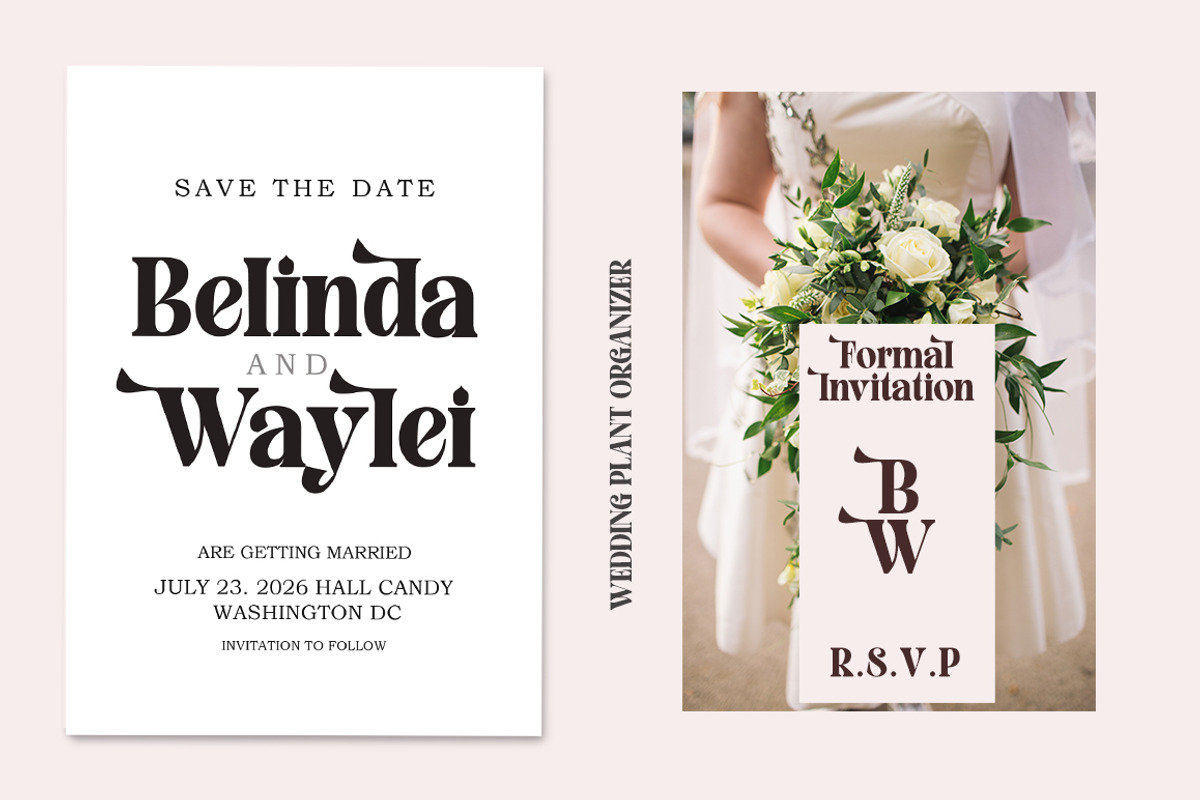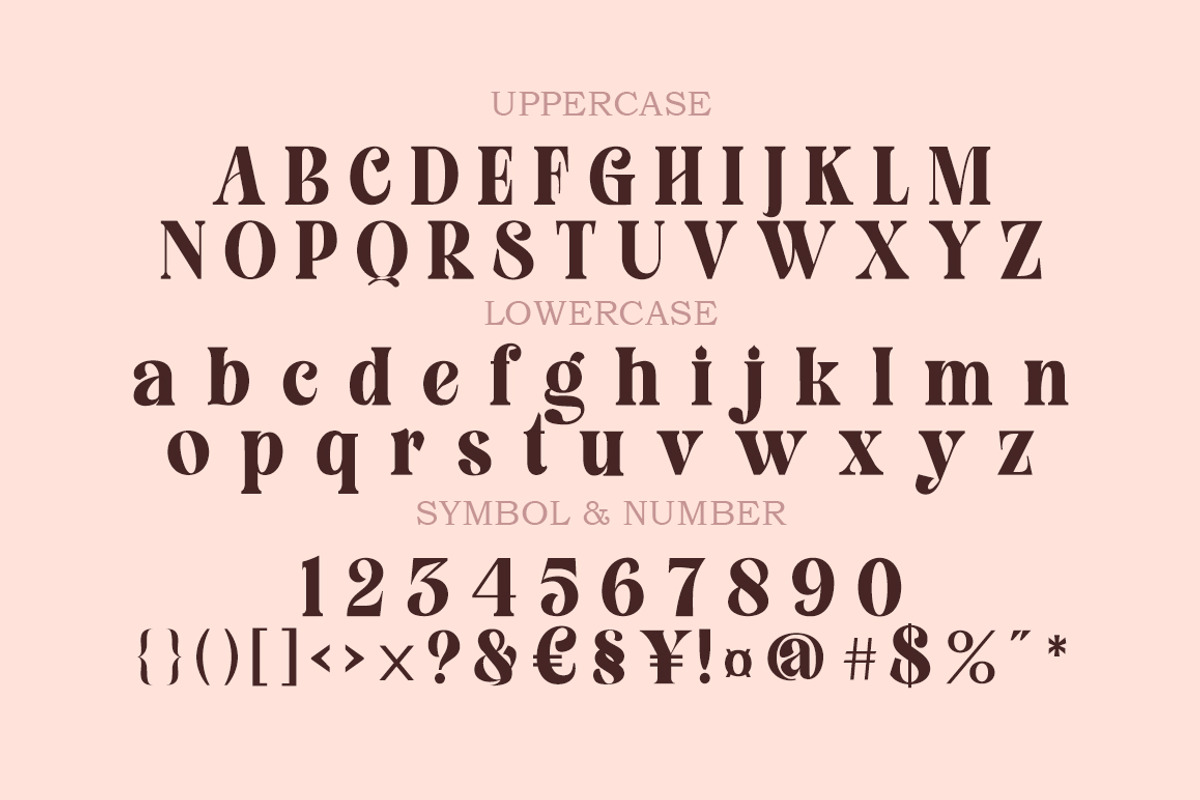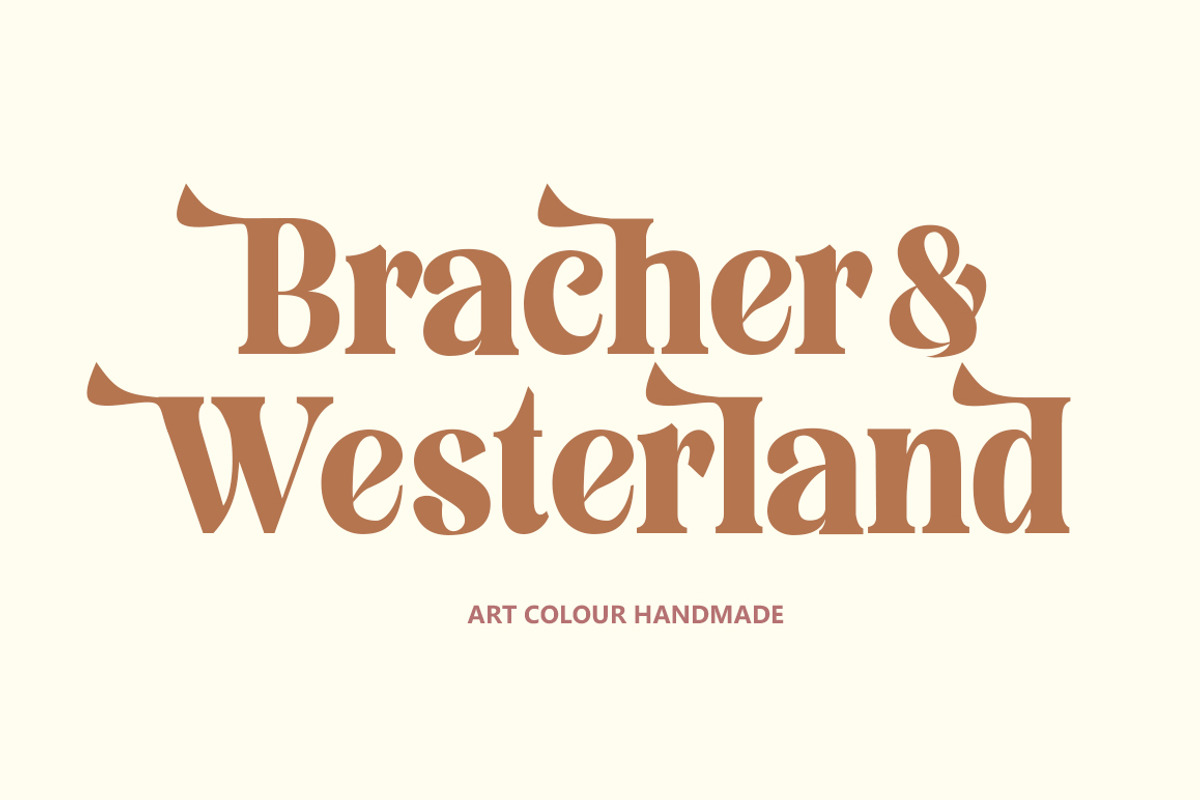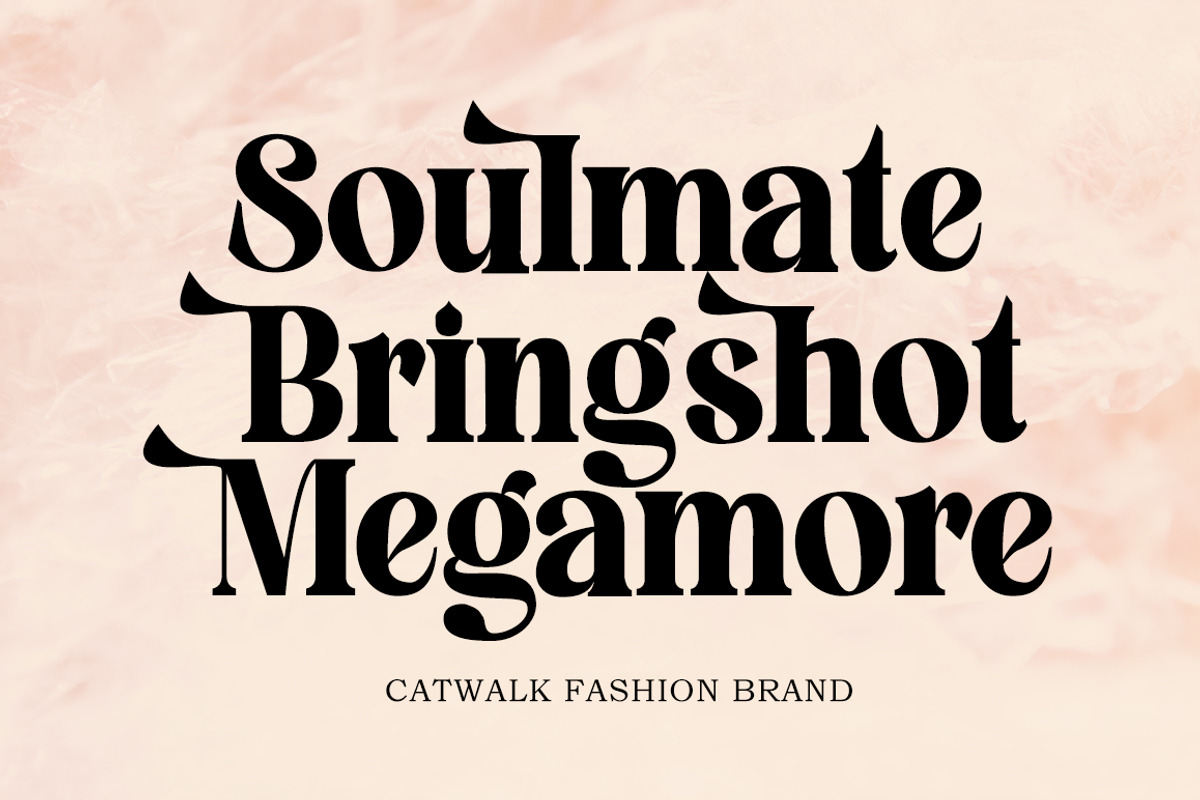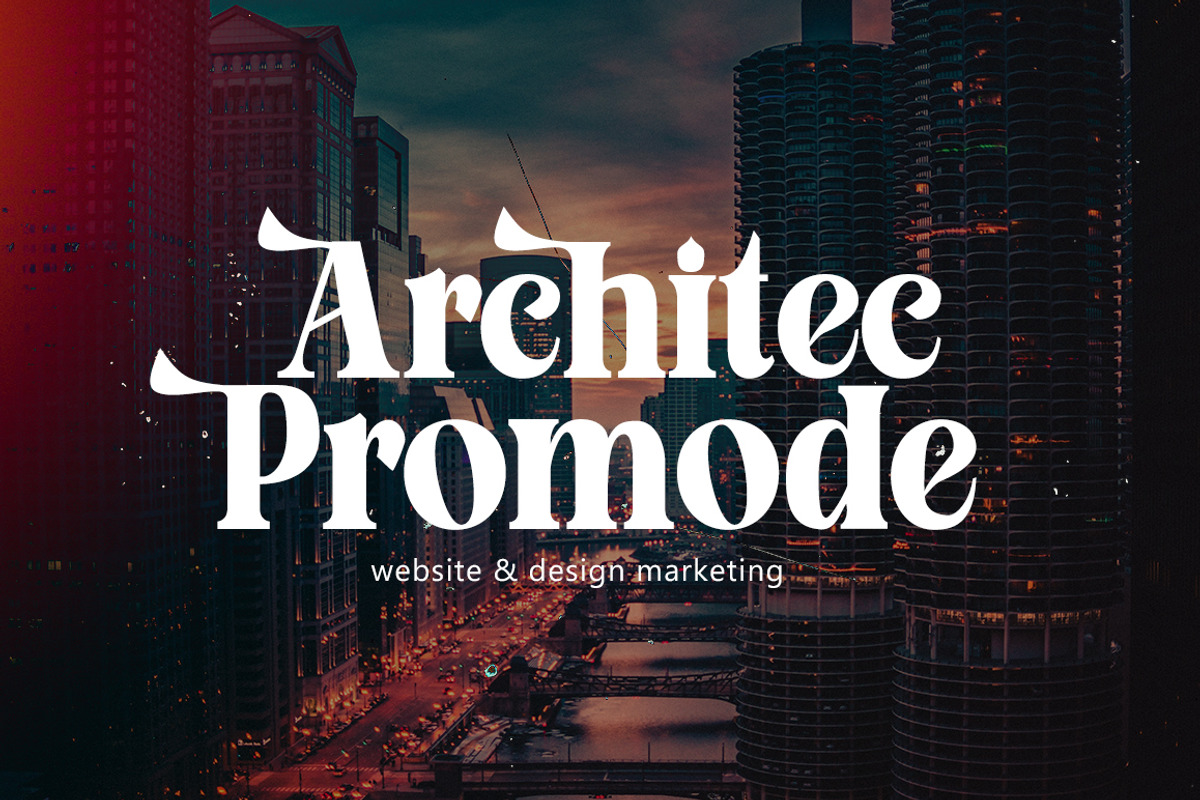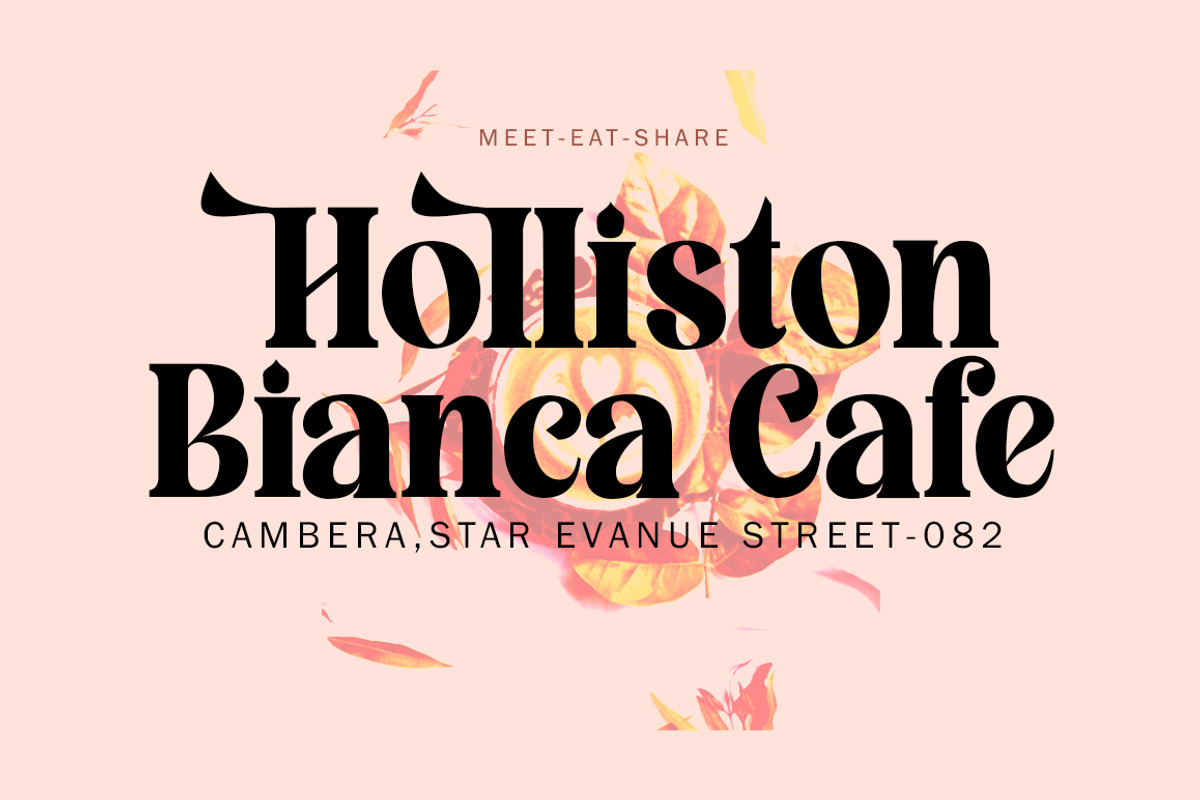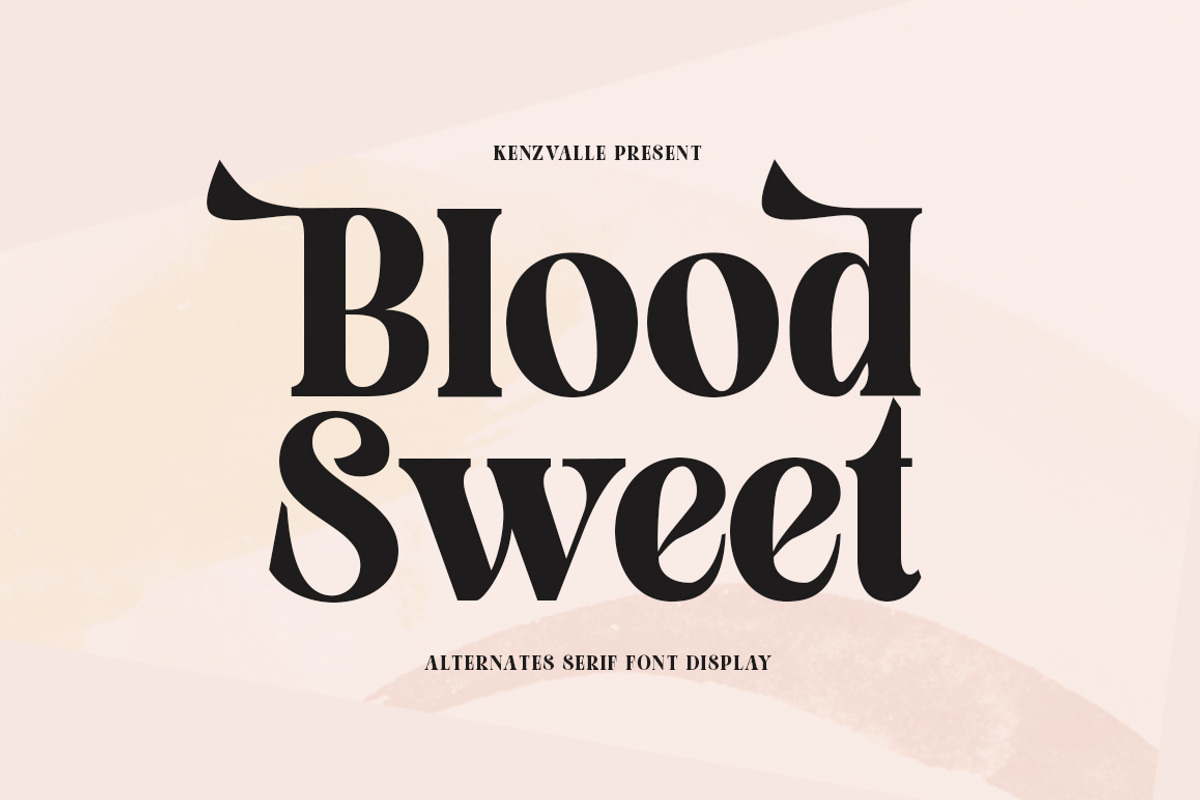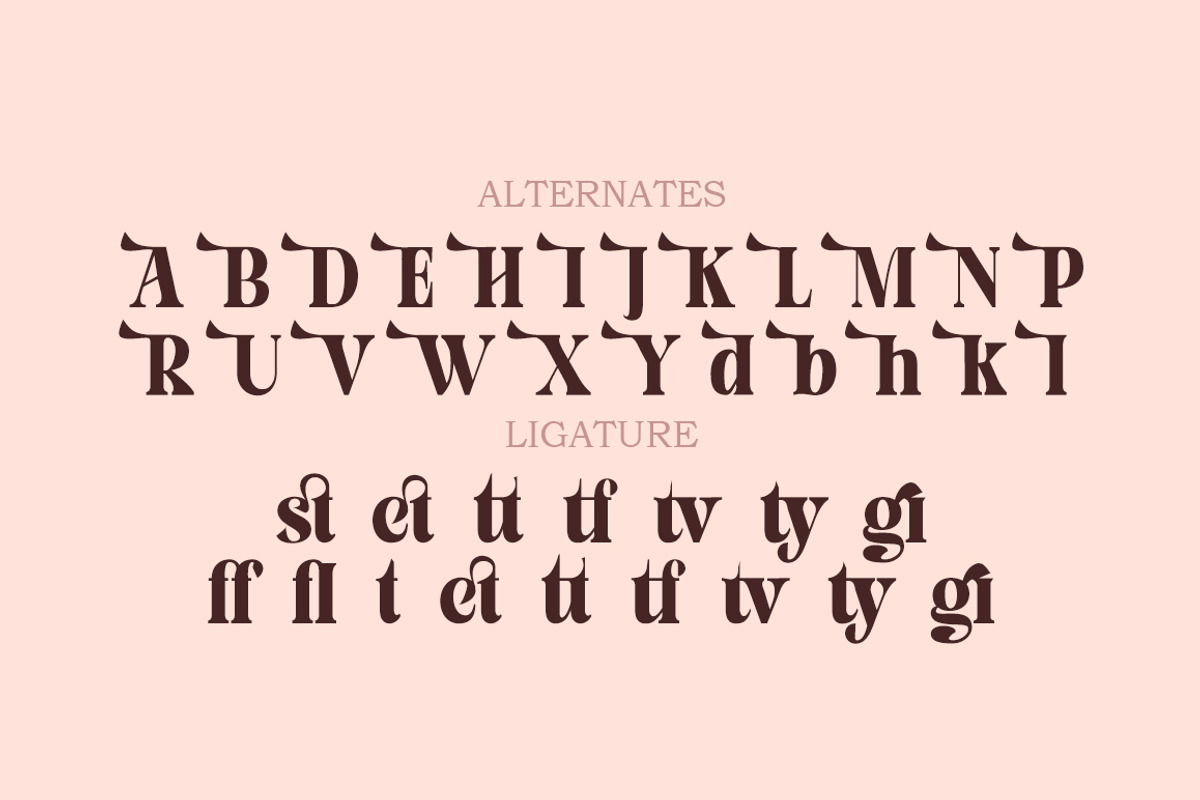
Blood Sweet
Blood Sweet is a vintage typeface, featuring a clean and letterpress style, regular and original with added ligatures and symbols. Blood Sweet is perfect for all types of display purposes from branding, emblems, advertisements, t-shirts, etc., you name it.
Blood Sweet is a modern fashion serif font, each letter is carefully crafted to make your text look unique. Feel free to message me if you have any questions!